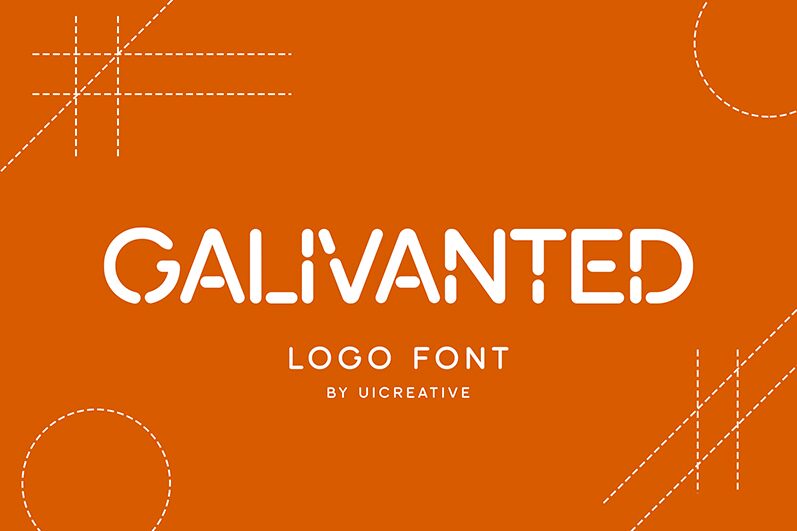
galivanted
Galivanted, designed by UI Creative, exudes a vibrant and modern flair, making it a standout display font. Its bold and playful design, characterized by strikingly exaggerated curves and lines, radiates energy and creativity. The unique shapes of the letters give it an almost futuristic feel while maintaining readability.
Ideal for eye-catching headlines, branding projects, or any design that aims to captivate and impress, Galivanted brings a fresh dynamism to your visual communications. Whether used in digital media or print, this font promises to add an innovative edge to your work.